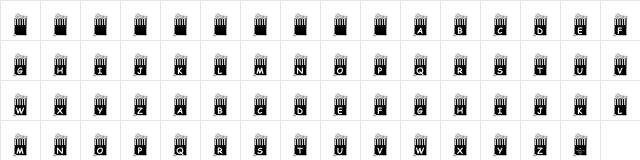
KR Popcorn Time! Regular
Design Context for KR Popcorn Time! Typeface
KR Popcorn Time! is a composed and adaptable typeface that performs quietly and consistently across a wide range of design contexts.